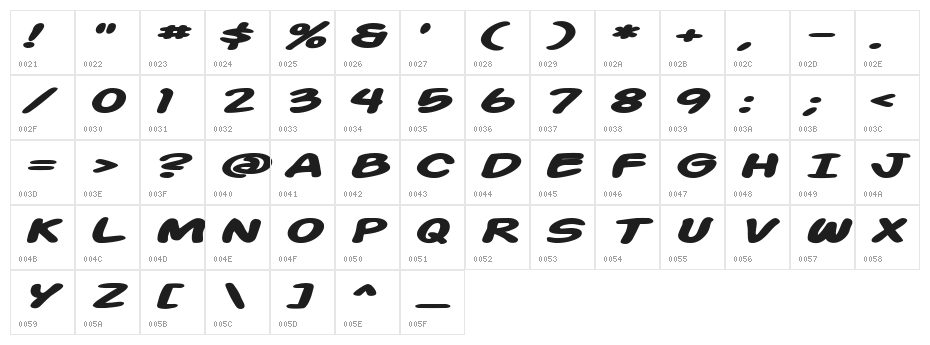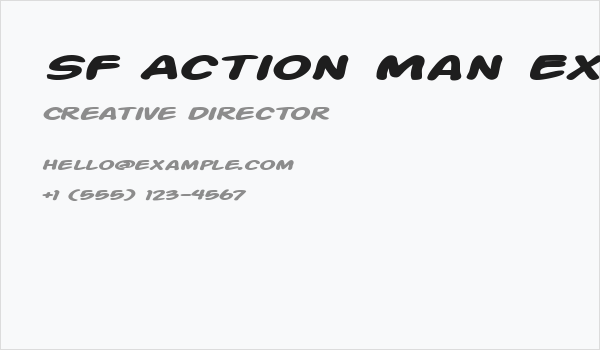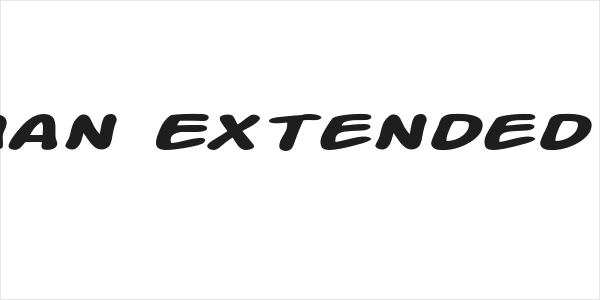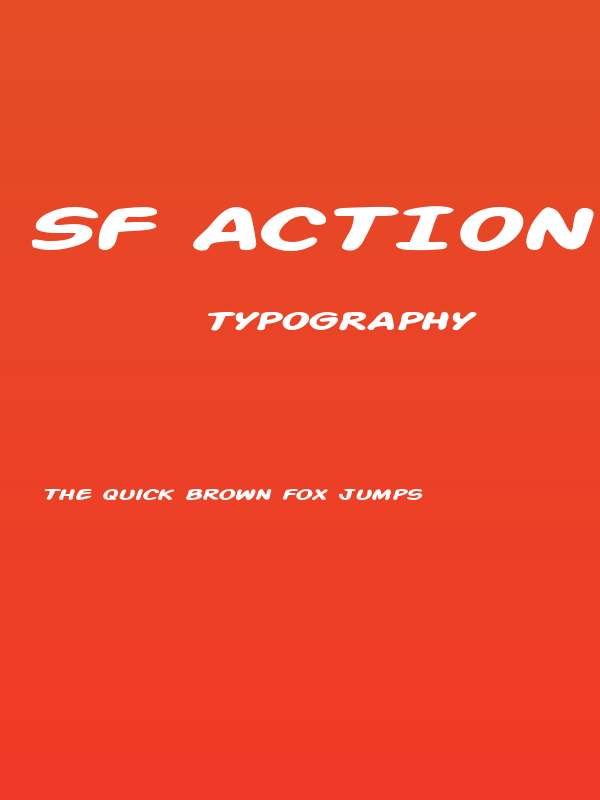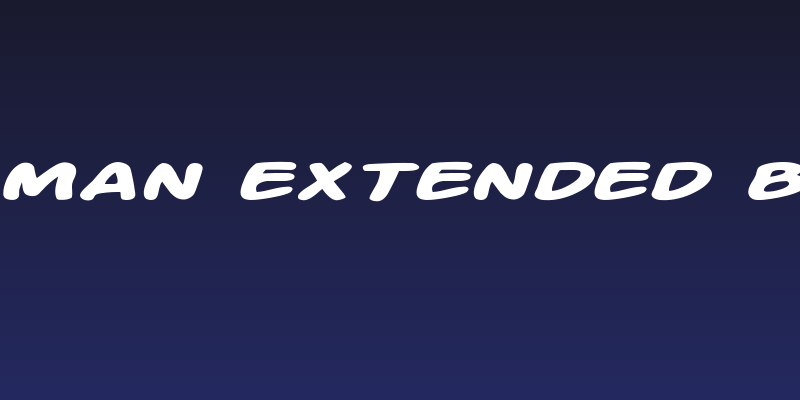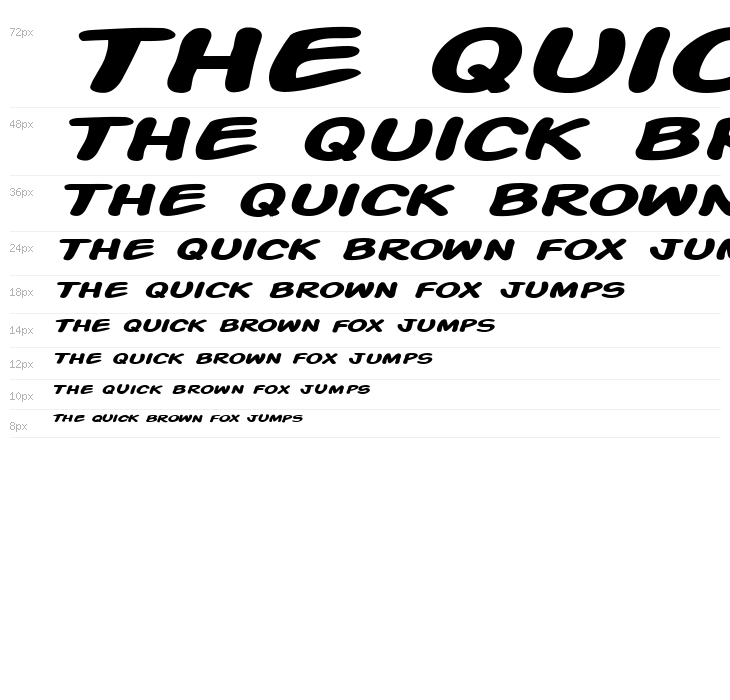
SF Action Man Extended Bold Italic Font
SF Action Man Extended Bold Italic Description
This font exhibits a bold and dynamic style with a strong italic slant, giving it a sense of motion and energy. The characters are thick and rounded, with a playful yet assertive appearance. The extended width of the letters provides a substantial presence, making it suitable for impactful headlines and attention-grabbing designs. The numbers and special characters maintain the same bold and energetic style, ensuring consistency across all elements. This font's unique combination of boldness and italics makes it stand out in any design context.